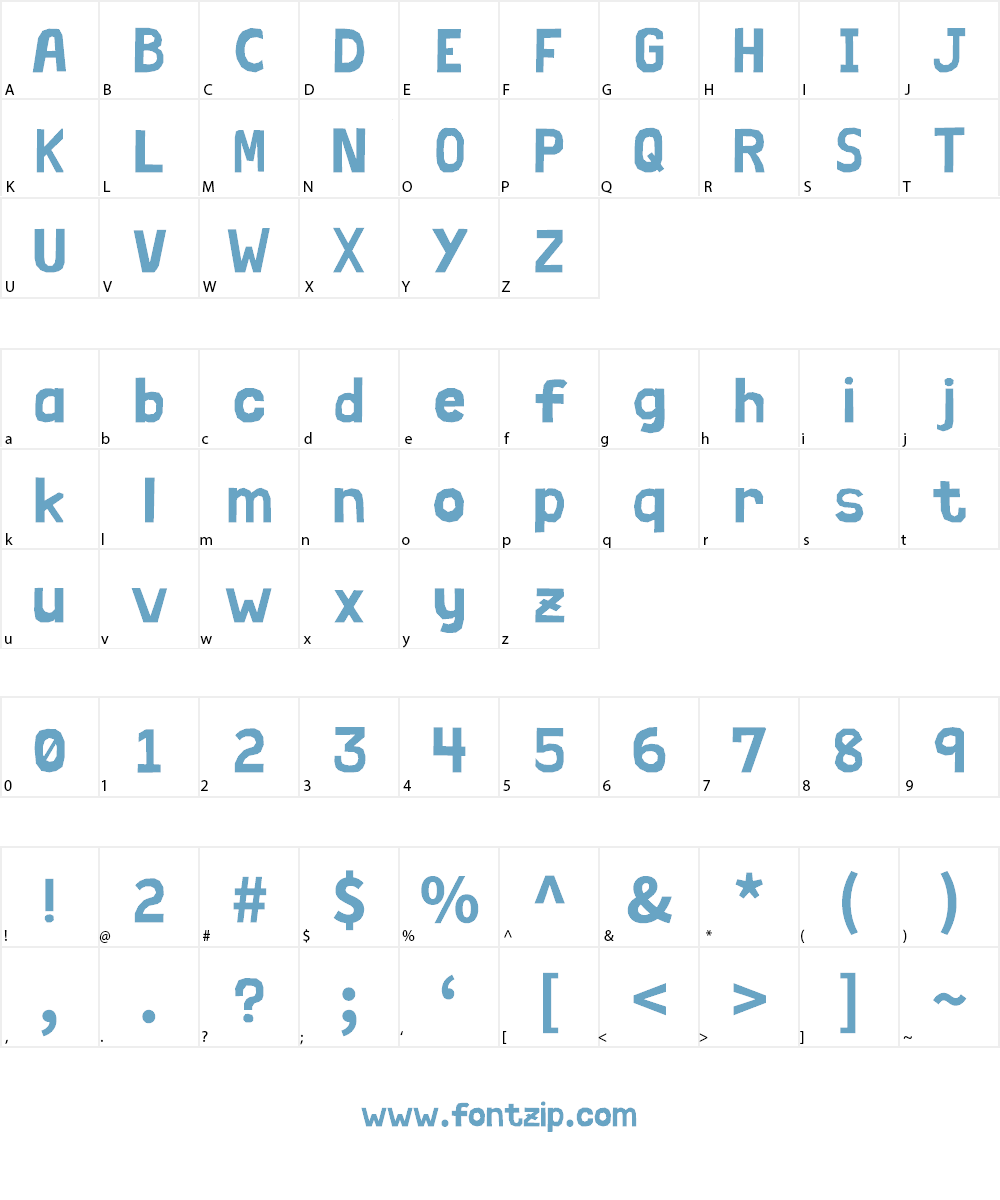
Chirumiru Papercut Font is a Japanese pop font akin to the paper cut-outs. The alphabets and the kana characters are original, while the other glyphs (including Kanji) were borrowed from the open source font, Genshin Gothic.
NOTE: Genshin Gothic is a font that derives from M OUTLINE FONTS and Source Han Sans.
日本語:
チルミル紙の切り欠きフォントは日本語ポップフォントです。ひらがな・カタカナ・英数字はオリジナルですが、それ以外の文字グリフ(漢字など)はオープンソースフォントである「源真ゴシック」を利用させていただいております。
※源真ゴシックは、M OUTLINE FONTSと源ノ角ゴシックの派生物のフォントです